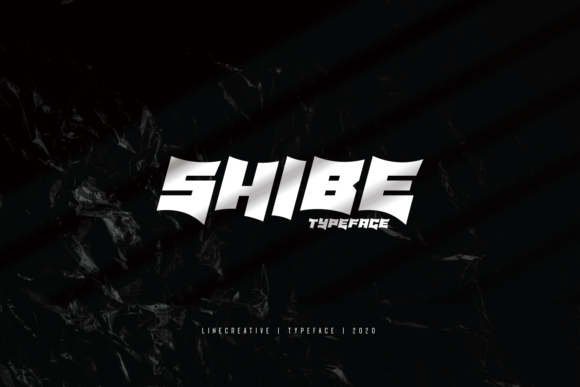
Behold, Shibe Font, the masterstroke of typography, crafted to elevate your digital creations to new heights of elegance and boldness. This display font, a masterpiece from Line Creative, boasts thick, impactful letters that demand attention and command respect. Its carefully crafted curves and sharp angles create a visual symphony that dances across the screen, leaving an indelible mark on your audience's mind.
Shibe Font: A Bold Statement for a Modern Age
In a world saturated with visual noise, standing out from the crowd is paramount. Shibe Font empowers you to do just that by injecting a dose of personality and sophistication into your digital endeavors. Whether you're a seasoned designer, a budding entrepreneur, or a passionate blogger, this font is your secret weapon to crafting captivating content that leaves a lasting impression.
Unleash Your Creativity with Endless Possibilities
With Shibe Font, the possibilities are limitless. Its versatility knows no bounds, making it the perfect choice for a wide range of projects. Design eye-catching logos that exude confidence and authority. Create stunning social media graphics that pop and engage. Craft website headlines that command attention and drive conversions. The power lies in your hands to transform ordinary text into extraordinary statements that resonate with your audience.
A Font That Speaks Volumes
Shibe Font is more than just a collection of letters; it's a visual masterpiece that speaks volumes. Its bold strokes and distinct character add a touch of drama and intrigue to your designs. Whether you're crafting marketing materials, presenting a business proposal, or simply expressing yourself through art, Shibe Font amplifies your message and captivates your audience.
Make a Statement, Leave a Legacy